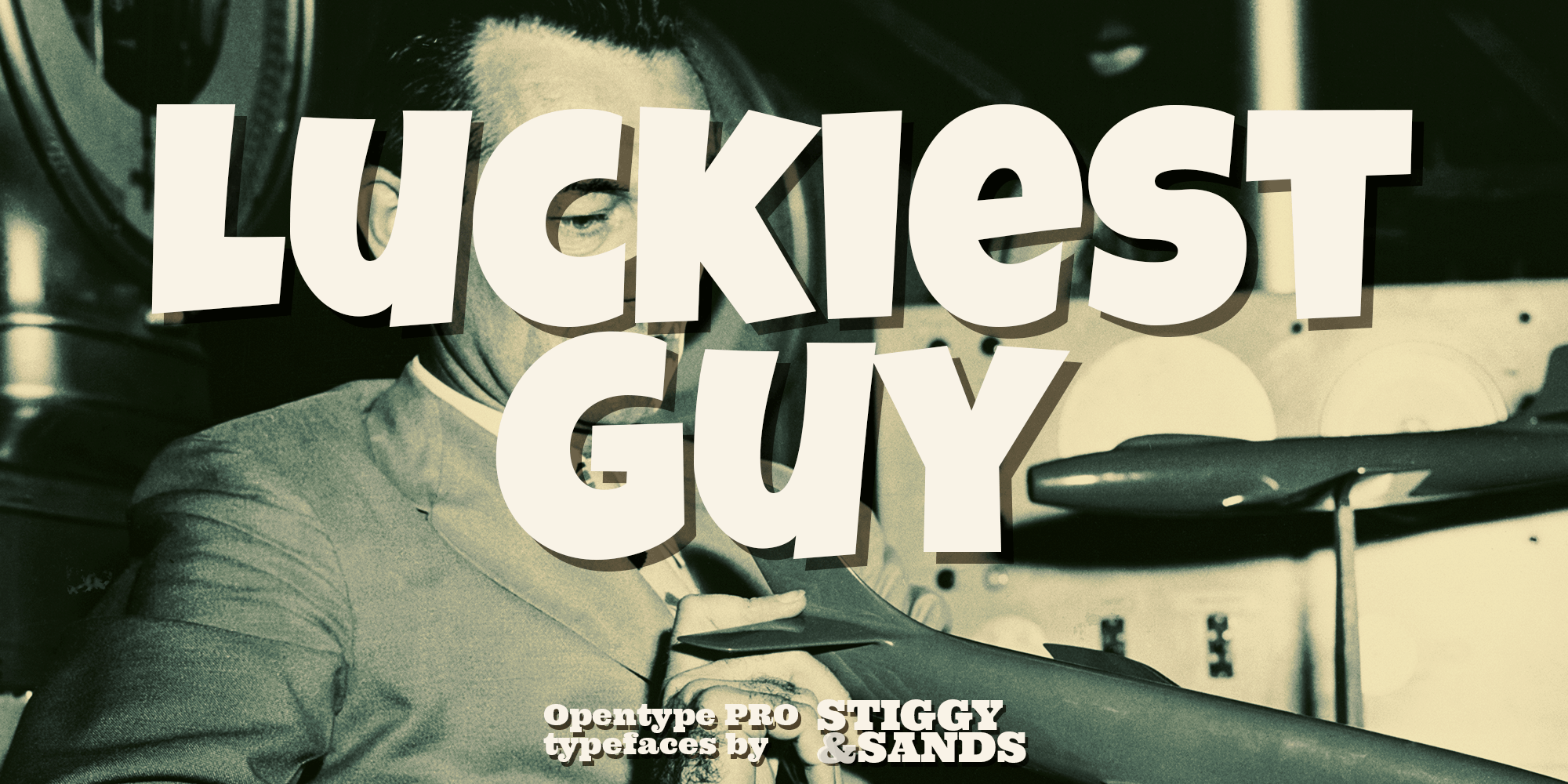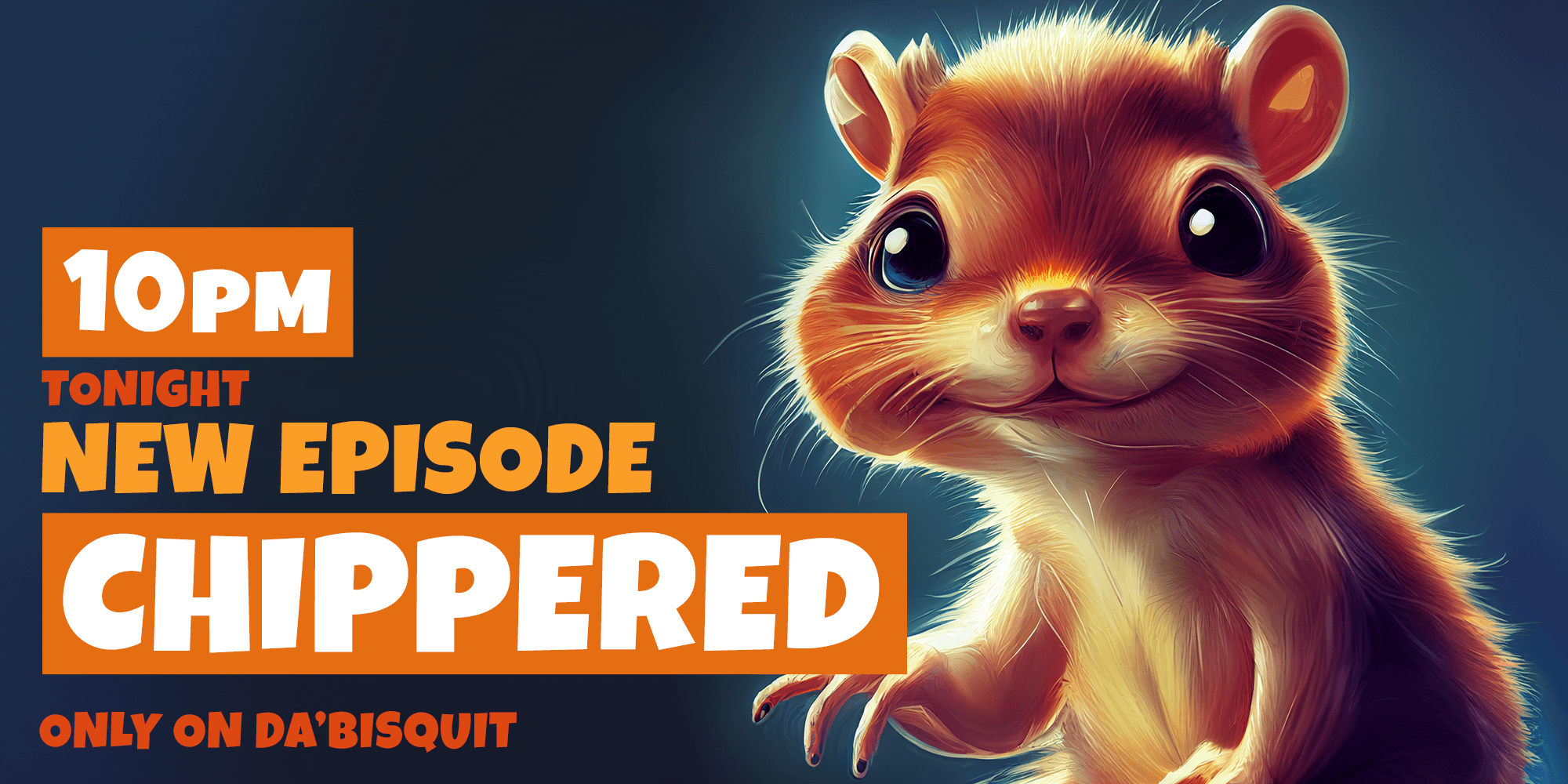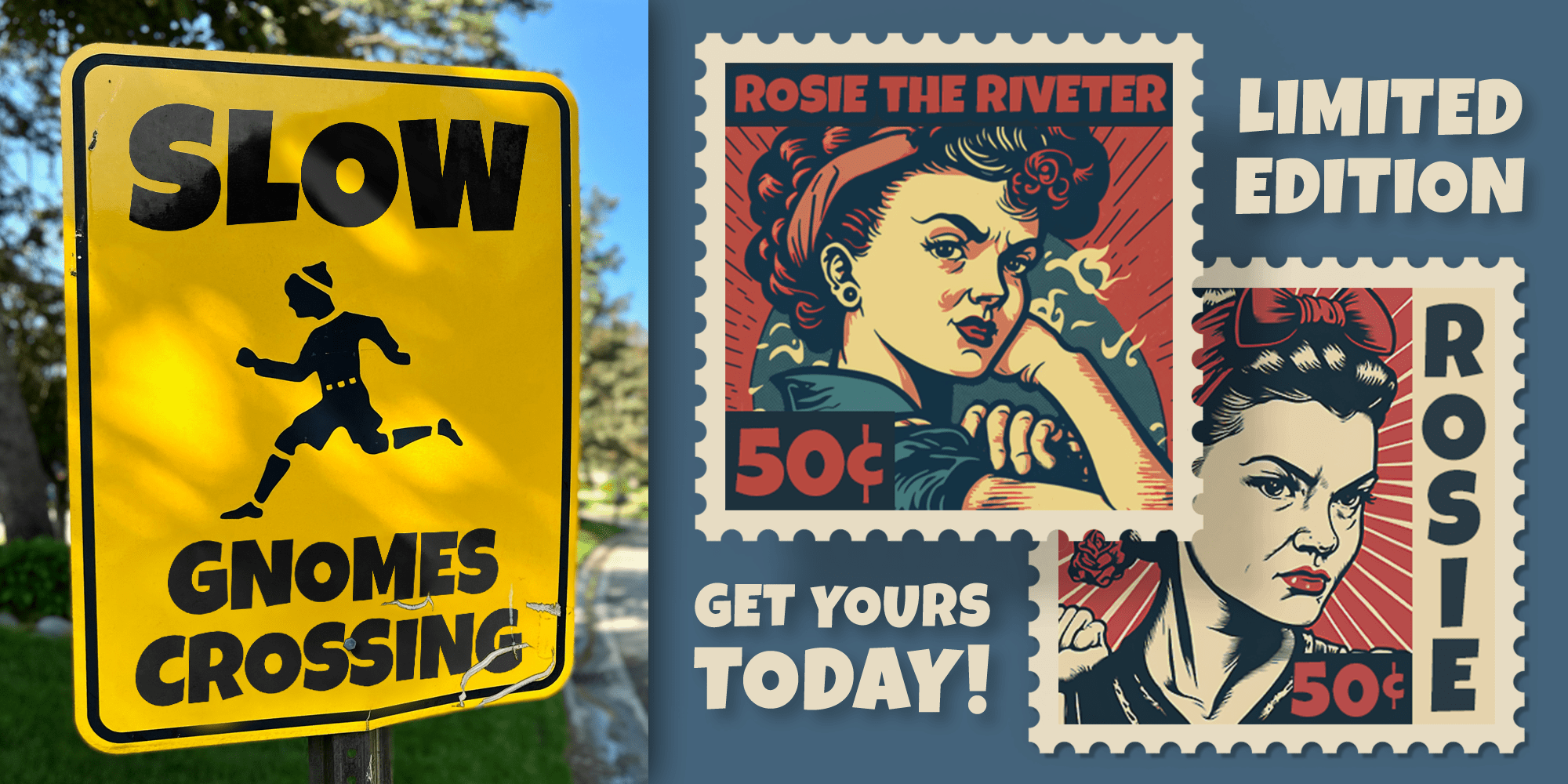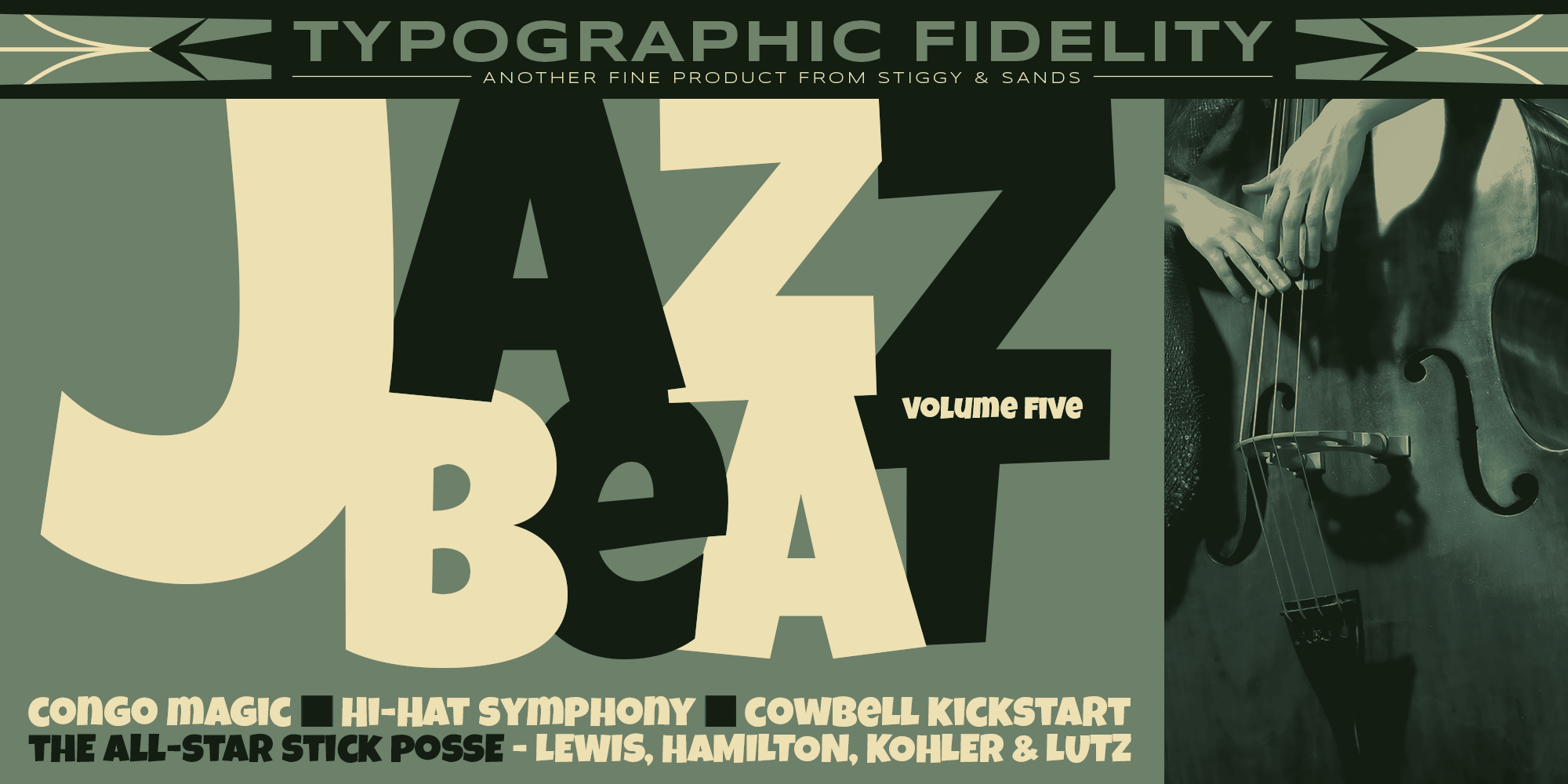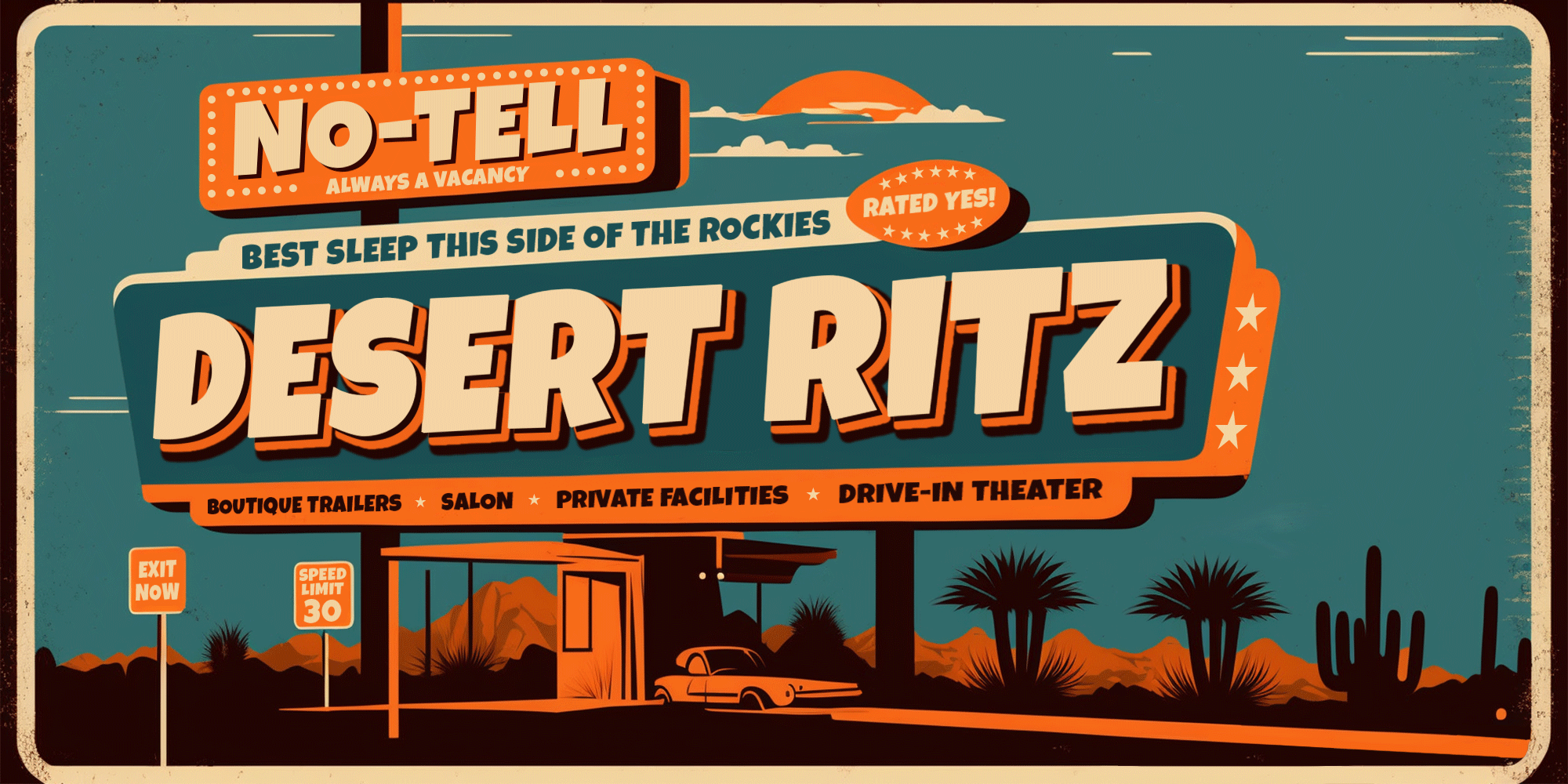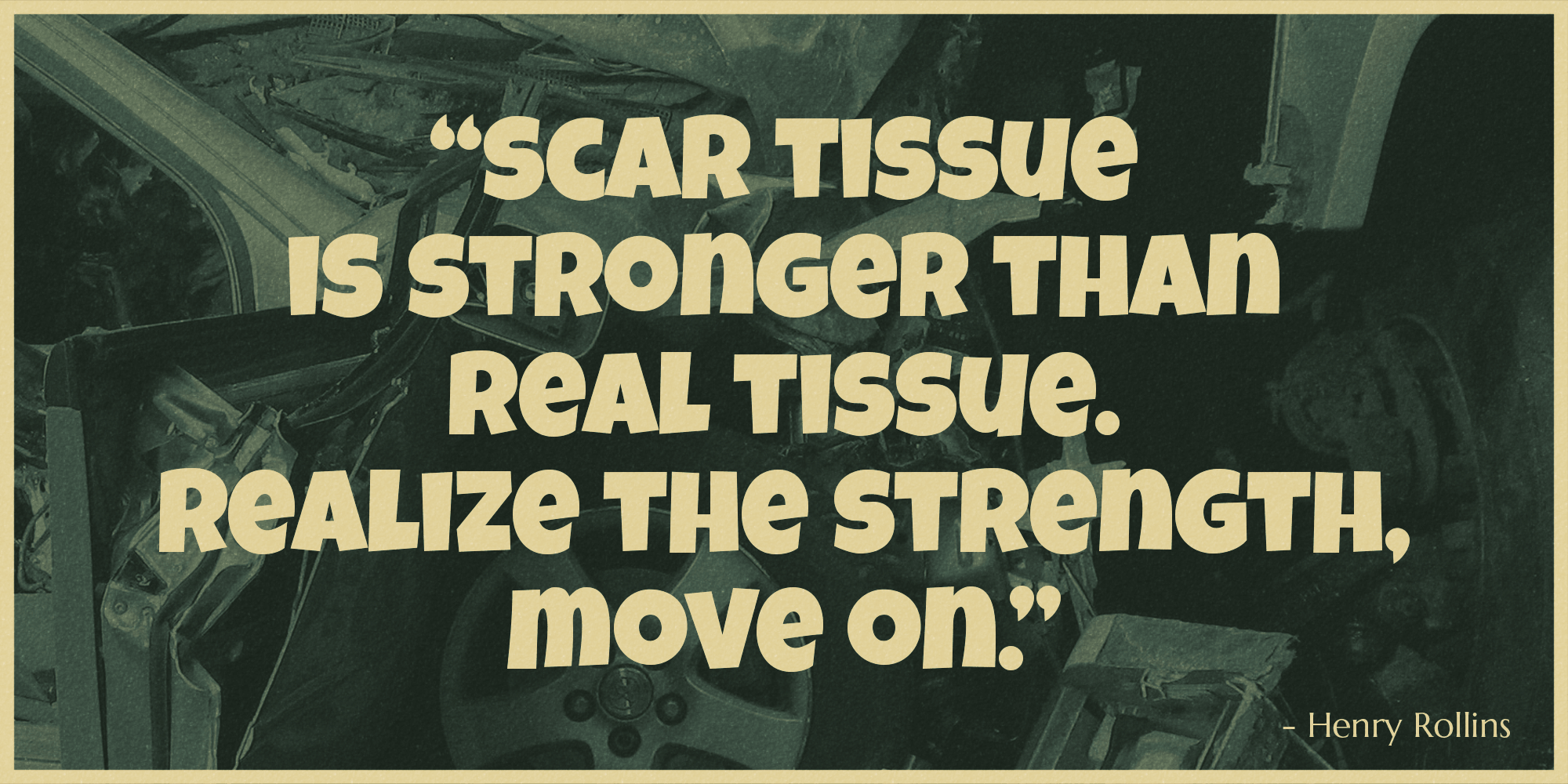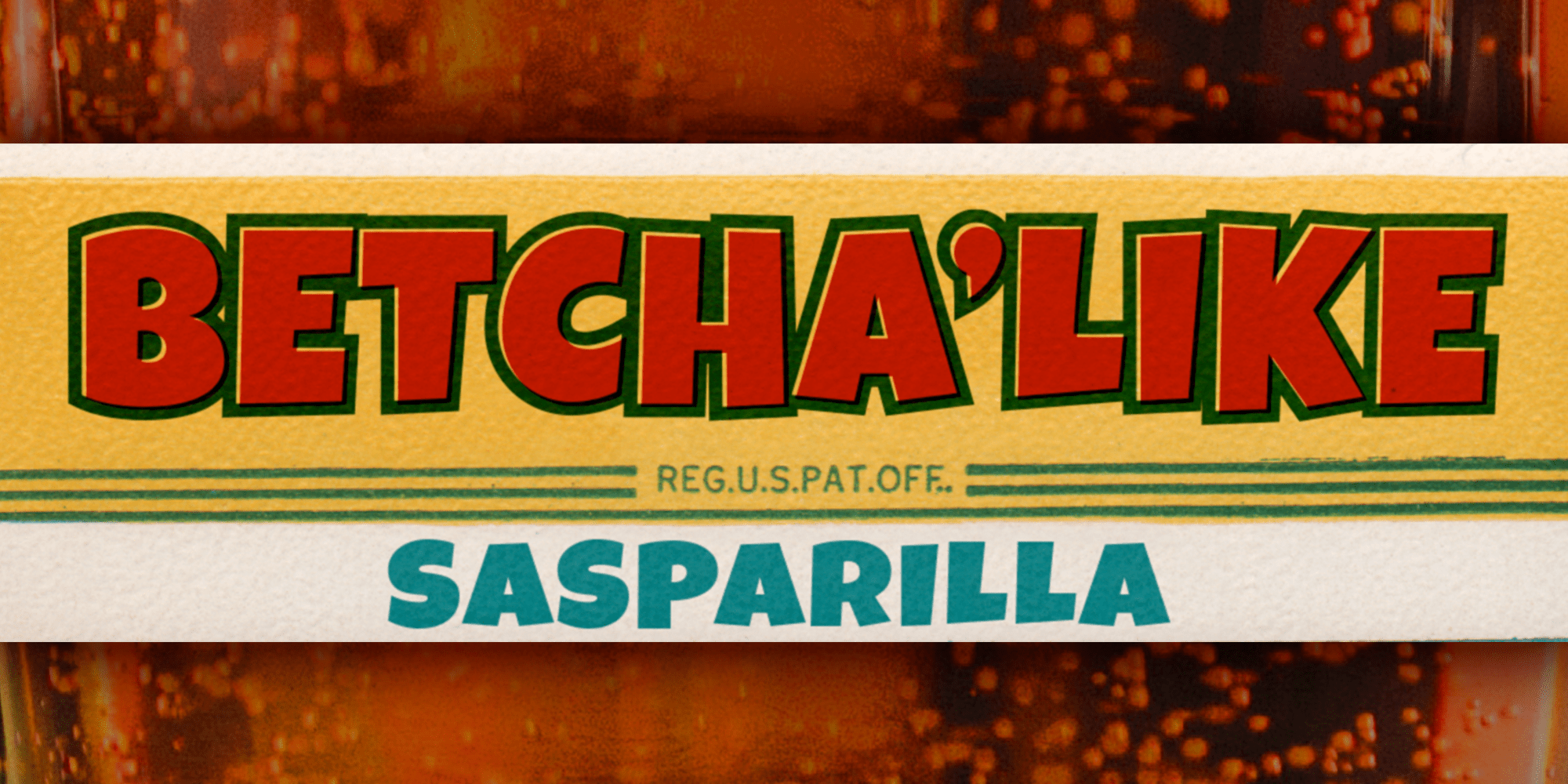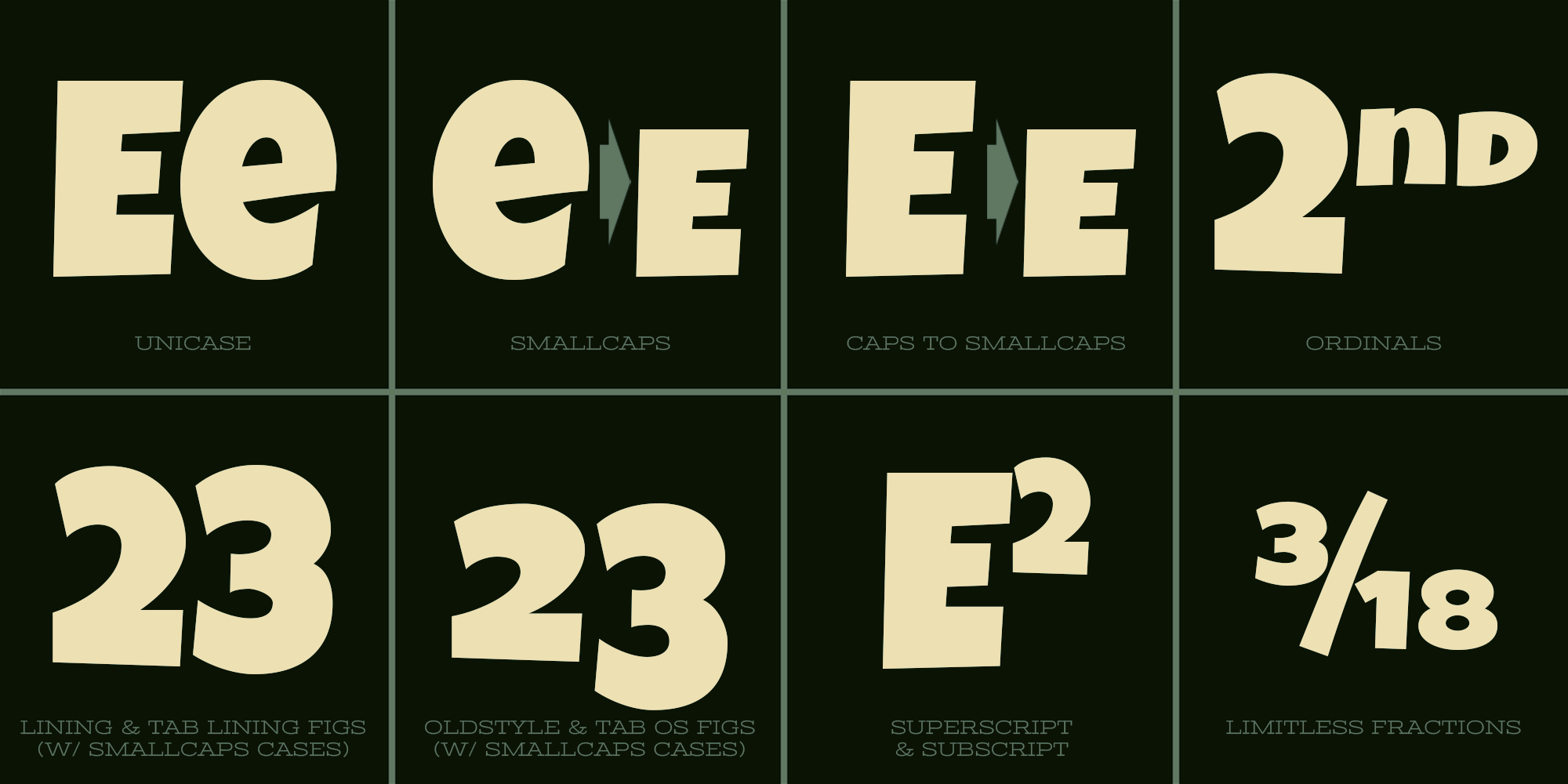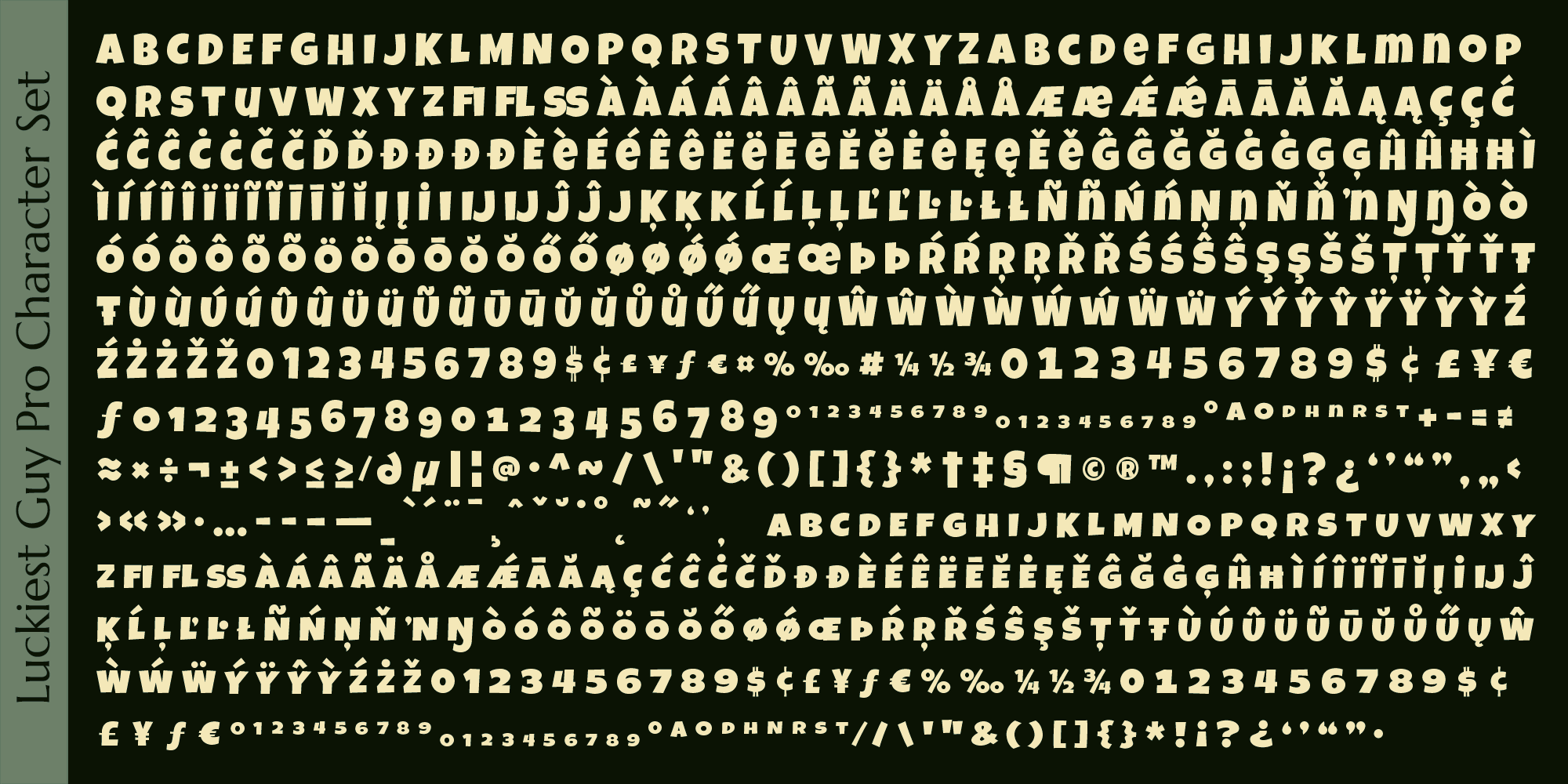
Luckiest Guy Pro
Buy NowOur Luckiest Guy Pro was inspired by hand-lettering by vintage 1950's advertisements. The uber-bold unicase letterforms exude charm and light-heartedness, while the SmallCaps and extensive figure sets expand the range of usability and appeal.
Loaded with character and charisma, this plump fellow stands out in the crowd.
Opentype features include:
• SmallCaps.
• Full set of Inferiors and Superiors for limitless fractions.
• Tabular, Proportional, and Oldstyle figure sets (along with SmallCaps versions of the figures).
• Stylistic Alternates for Caps to SmallCaps conversion.